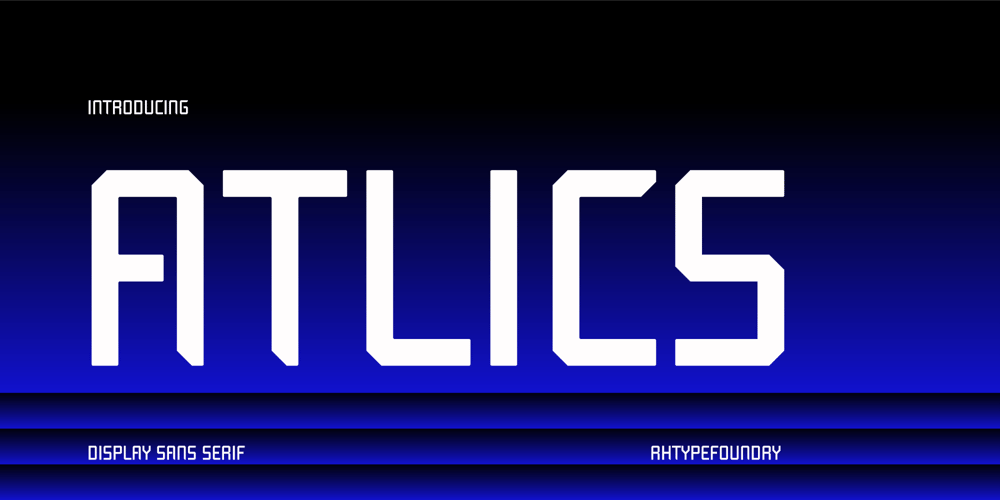
Atlics Font Family was designed by Rizky Herdiansyah and published by Rhtype. Atlics contains 1 styles and family package options. Atlics font is a typeface characterized by its upright lines and sporty style. It embodies characteristics of firmness, boldness, and sportiness. With its straight lines and dynamic appearance, Atlics font exudes a sense of determination and courage. This font is perfect for projects that aim to convey a strong and competitive spirit. Its sporty aesthetics add a touch of energy and vigor to any design, making it a popular choice for sports-related branding, posters, and signage.